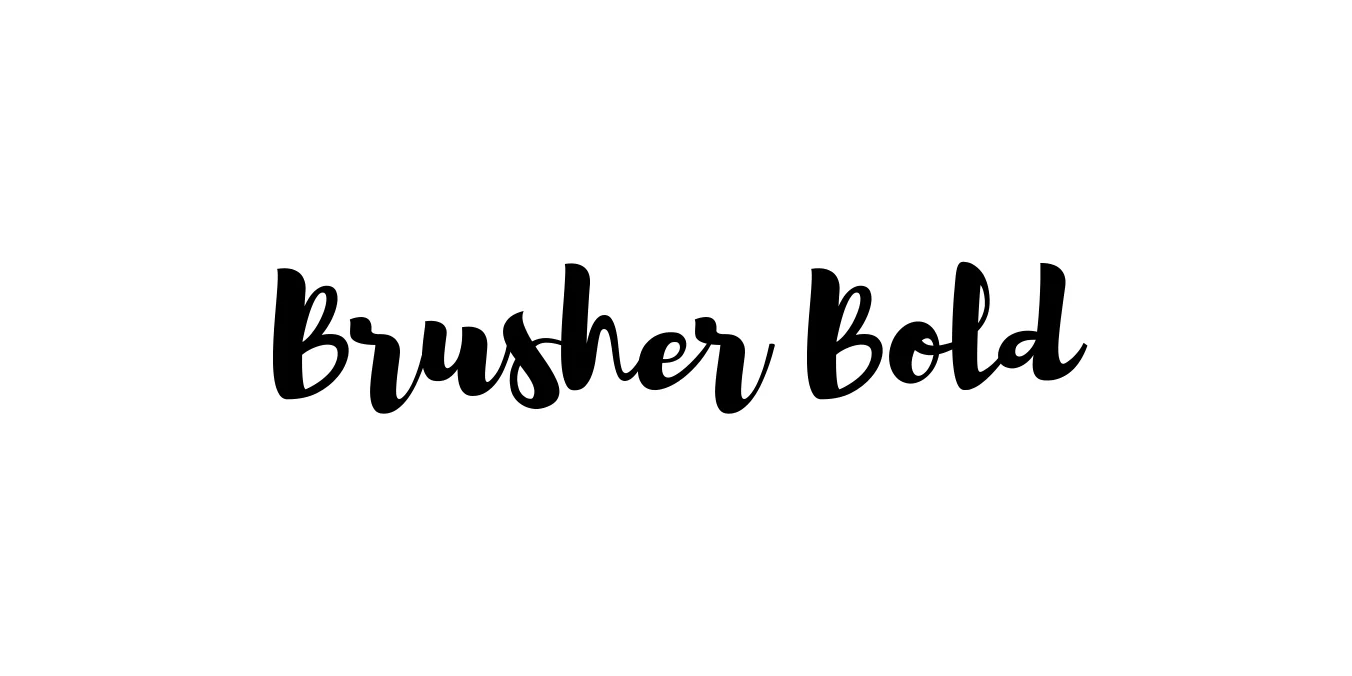
Brusher Bold
Designed by Vlad Cristea and Raul Taciu
Developed as a collaborative project between Romanian designers Vlad Cristea and Raul Taciu, Brusher emerged as a premier choice for designers seeking a realistic, hand-painted aesthetic. The font was crafted to capture the nuances of a dry brush technique, offering a raw and authentic texture that bridges the gap between digital precision and manual craftsmanship. Since its release, it has become a staple in the creative community for its distinct, energetic personality and versatility in modern digital layouts.
Technically, Brusher Bold features a medium-to-high x-height that ensures surprising legibility even at smaller scales—a rarity for many expressive brush scripts. The letterforms are characterized by fluid, sweeping strokes and deliberate irregularities that mimic natural ink flow and pressure. The visual weight is substantial, providing a heavy presence that anchors headlines without feeling overly cluttered. Its terminals are tapered and textured, creating a rhythmic movement across the baseline that feels both spontaneous and structurally sound.
Brusher Bold Best Uses
Ideal for logos needing a personal, handcrafted touch.
Great for high-impact Instagram quotes and story overlays.
Perfect for t-shirt prints and urban streetwear branding.
Excellent for bold, energetic event headlines.